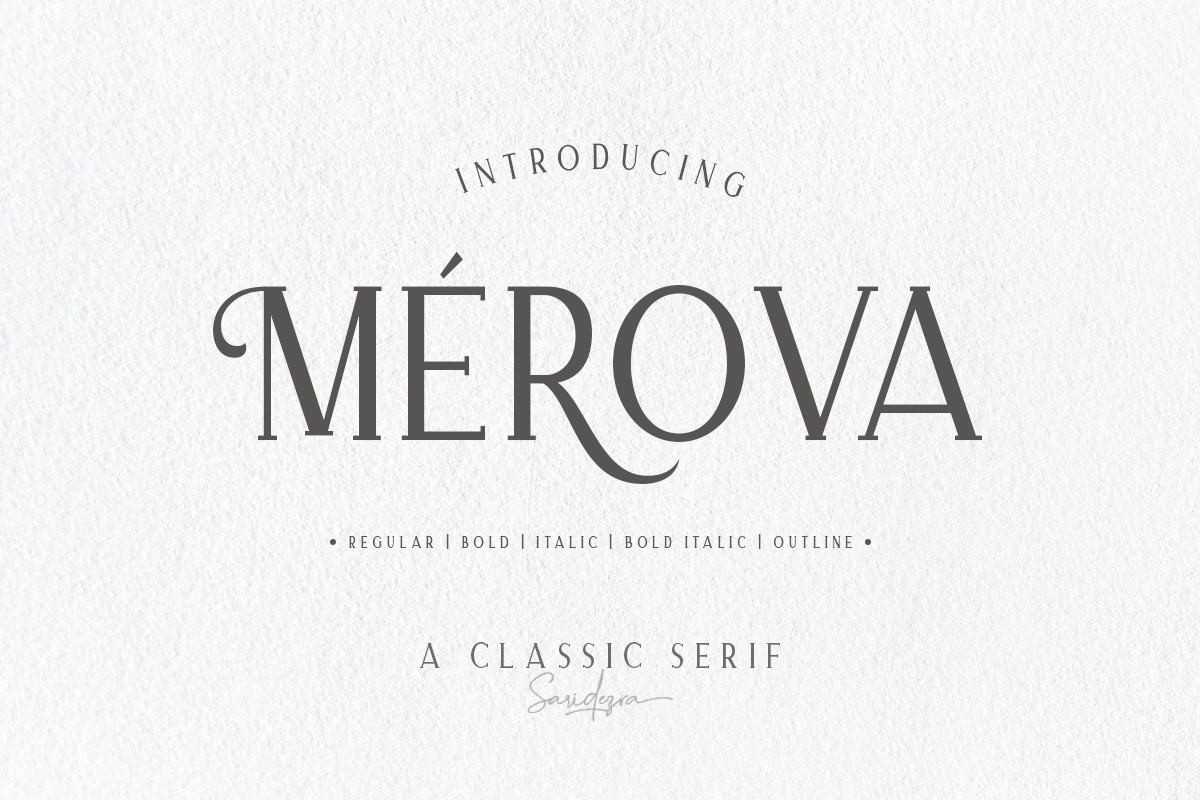
Merova - Classic Serif (5 Fonts) Free Download is a timeless and elegant serif typeface family that includes five different styles. Perfect for a wide range of design projects, from luxury branding to editorial layouts, Merova brings sophistication and readability with its carefully crafted letterforms. Whether you're designing for print or digital media, these fonts offer versatility and style for both headlines and body text.
Add classic elegance to your projects with Merova - Classic Serif (5 Fonts) Free Download, and bring timeless sophistication to your typography. Perfect for designers seeking a refined and versatile serif type family.